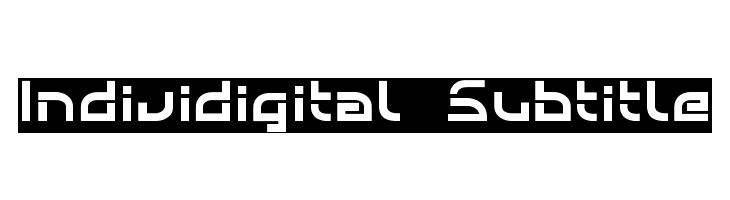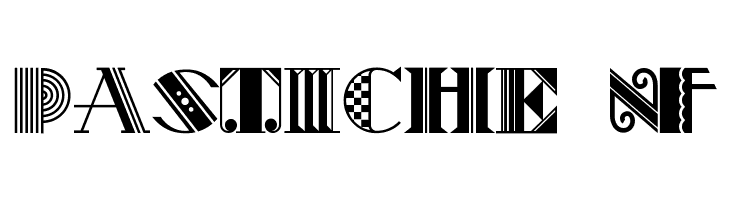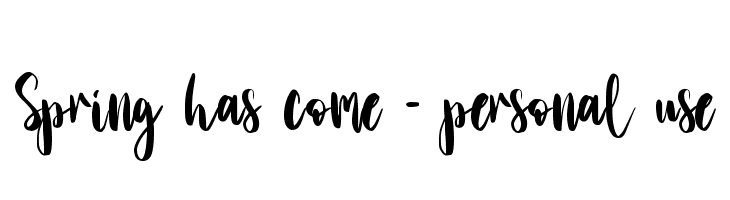
( Fonts by Roland Huse - rolandhuse.com )
A bold, futuristic geometric font with angular letterforms.
( Fonts by Nick Curtis - www.nicksfonts.com )
A vibrant, eclectic display typeface with Art Deco and vintage influences.
A bold, geometric font with a futuristic and edgy design.
A playful handwritten font with smooth, rounded edges and a casual style.
A bold, geometric outline font with a modern and futuristic style.
A dot matrix style font with a digital and modern aesthetic.
A bold, distressed font with a rugged, grunge texture.
A bold, italicized font with a 3D effect and angular, futuristic design.
( Pixeluigi - Luis G. Galván - www.facebook.com/memohd25 )
A clean, modern font with elongated characters and rounded edges.
( Fonts by Syafrizal )
A playful, handwritten font with smooth, flowing lines and rounded edges.